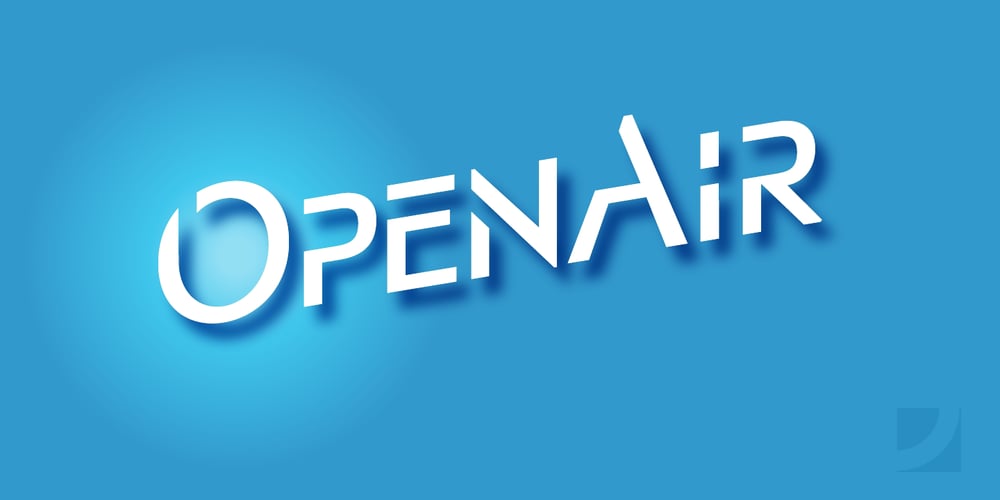
OpenAir Font Family was designed by John Nahmias and published by Jonahfonts. OpenAir contains 1 styles and family package options. OpenAir is a display typeface unlike standard Stencil Fonts. Great for logos, short titles and comes with Old Style numerals as well some ligatures.